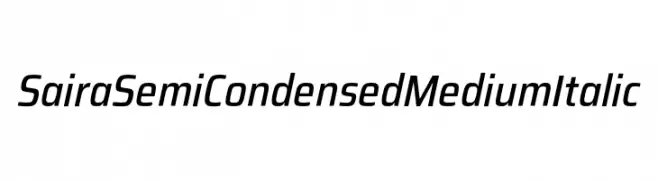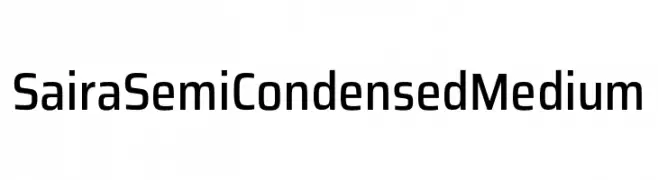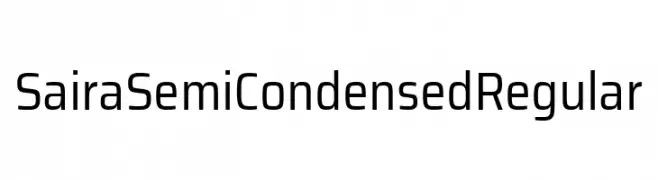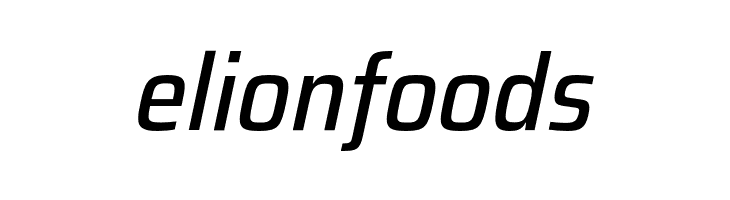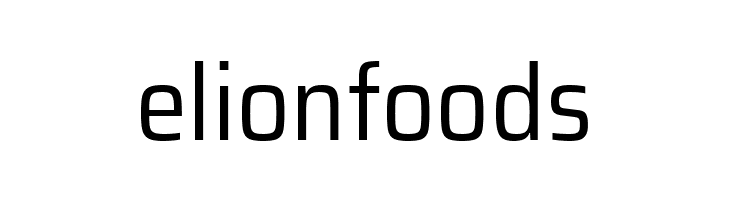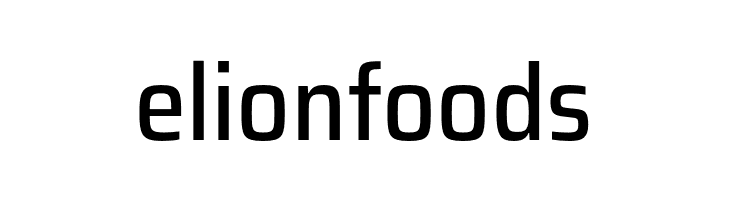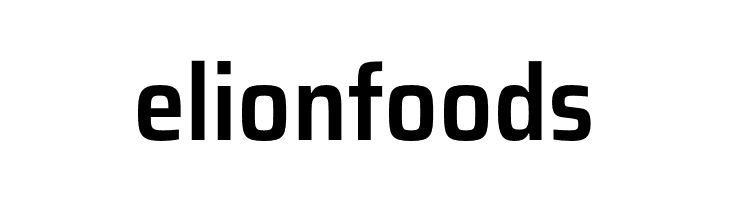
A bold, semi-condensed italic font with a modern and dynamic style.
A modern, semi-condensed font with a clean and minimalist design.
A sleek, modern semi-condensed italic typeface with an extra light weight.
A modern, semi-condensed italic font with a sleek and professional design.
A modern, semi-condensed font with a clean and professional look.
A sleek, semi-condensed, light italic font with a modern and dynamic style.
A modern, semi-condensed font with a clean and professional look.
A sleek, semi-condensed italic font with a modern and dynamic style.
A modern, semi-condensed sans-serif font with clean lines and excellent readability.
A modern, semi-condensed sans-serif font with bold, uniform strokes.